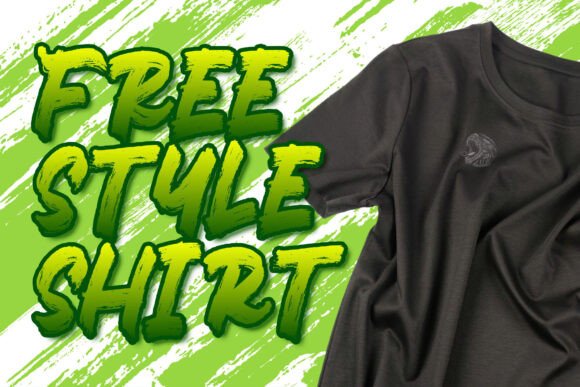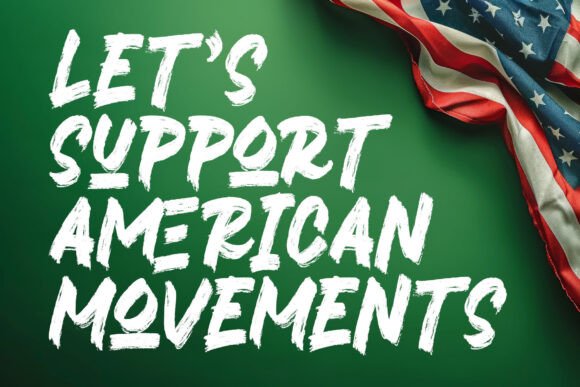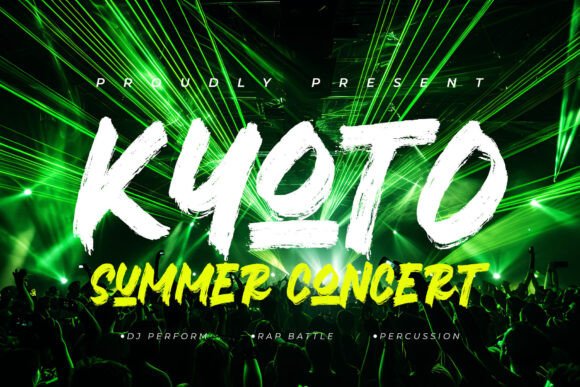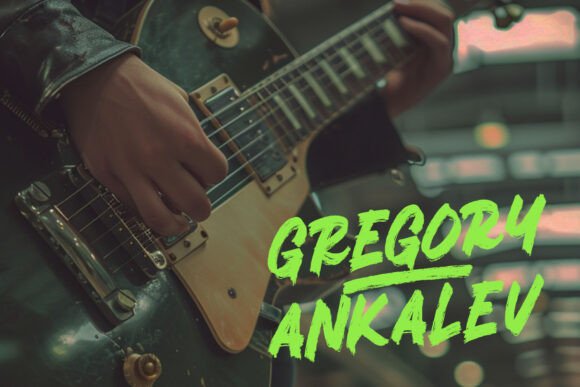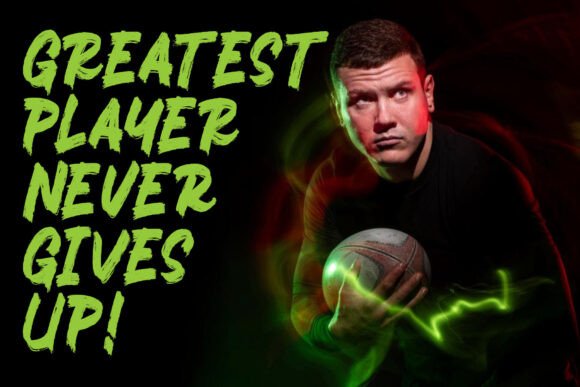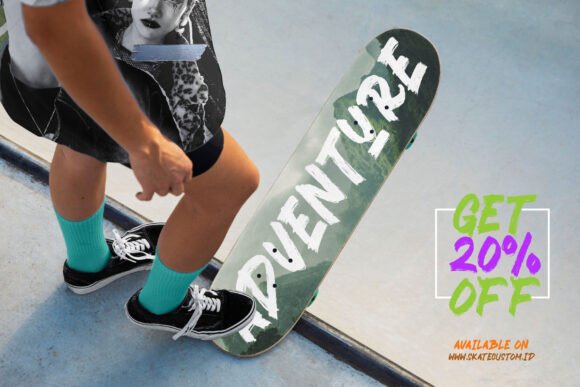
The George Brush Font: A Game-Changer for Creative Projects
Have you ever been in the middle of a design project, pouring your heart and soul into it, only to realize that something’s missing? You’re not alone. I recall a particularly frustrating experience when I was working on a branding project for a local artisan. My client wanted a bold, eye-catching font that would capture the essence of their handmade products. After scouring the internet for hours, I stumbled upon the George Brush font. It was love at first sight! 💕
George Brush is a bold, all-caps handwritten brush font that’s designed to bring raw energy and expressive character to your creative projects. With detailed brush textures in every shape, this font captures the authenticity of hand-drawn strokes, making it perfect for designs that demand a dynamic, artistic edge.
- ✨ The bold, expressive strokes that give my designs a unique, handcrafted feel
- ✅ The font’s versatility – it works beautifully for apparel branding, logotypes, posters, and merchandise
- 🎨 The attention to detail in every shape, which adds a level of sophistication to my designs
While George Brush is an amazing font, it’s not without its quirks. For instance, ⚠️ some users may find that the font’s bold strokes can be overwhelming when used in large blocks of text. Additionally, 🤔 the font’s all-caps design may not be suitable for projects that require a more formal or traditional look.
The Story Behind George Brush
George Brush was designed by a team of creatives who wanted to capture the essence of hand-drawn strokes in a digital font. The designers drew inspiration from traditional brush calligraphy and hand-painted signs, aiming to create a font that would bring a touch of raw energy and expressive character to creative projects.
| Author | Madatype Studio |
| What is George Brush font? | George Brush is a bold, all-caps handwritten brush font designed to bring raw energy and expressive character to creative projects. |
| Is George Brush suitable for body text? | While George Brush is a beautiful font, it’s best suited for headlines, titles, and short blocks of text. Its bold strokes can be overwhelming for large blocks of body text. |